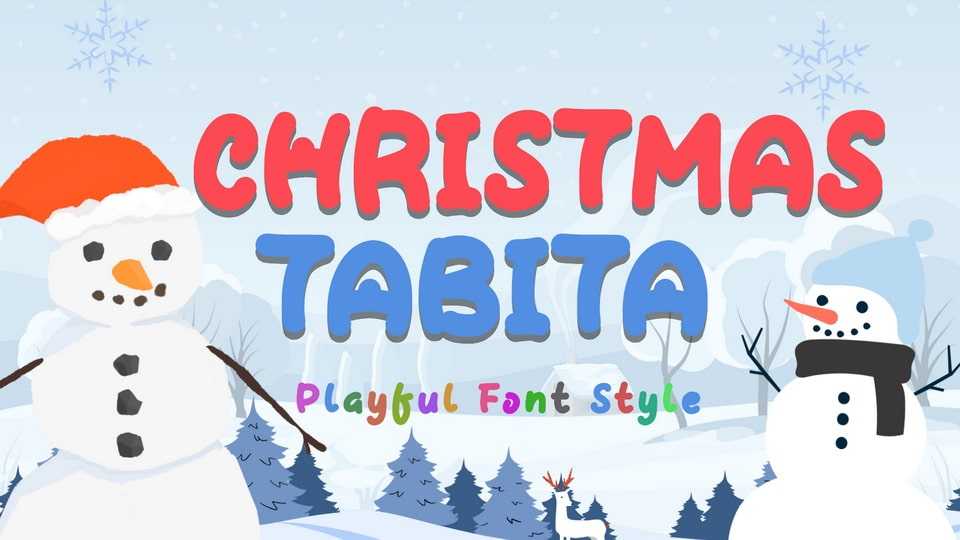
Download Christmas Tabita font is a bright, playful display typeface that captures the cozy excitement of the holidays. This font features chunky, rounded, bubble-style letters with thick, clear strokes.